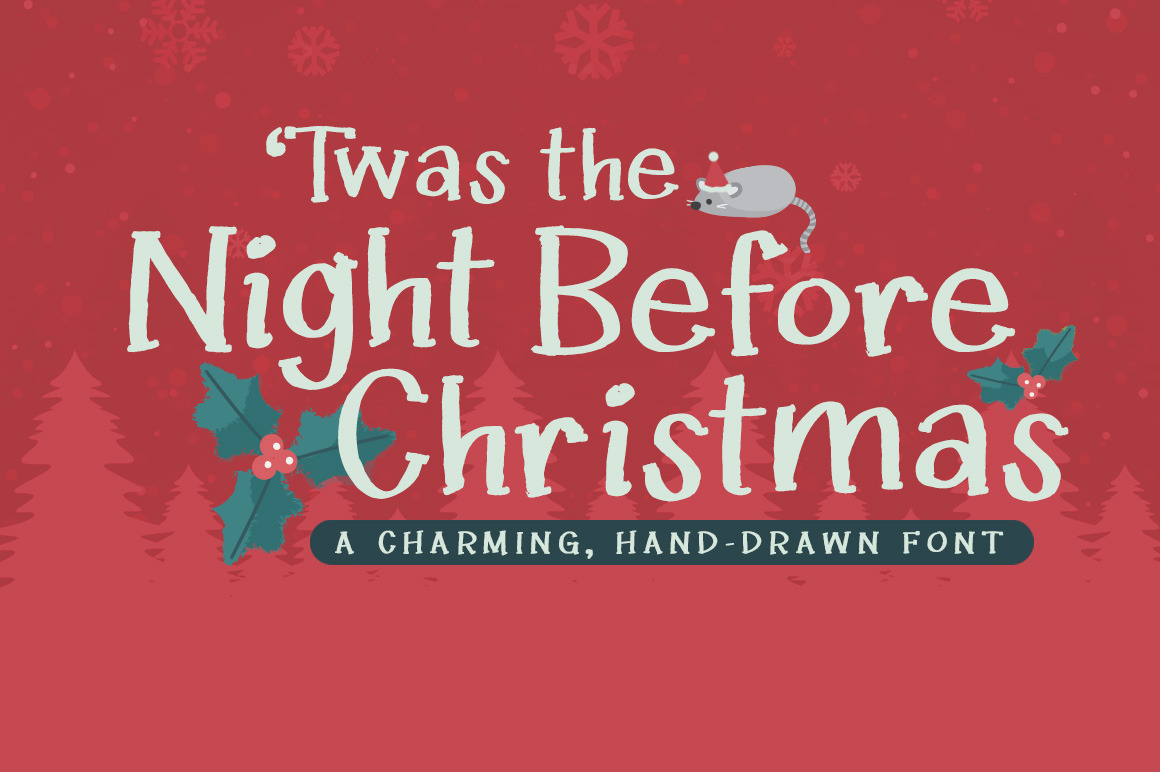
Twas the Night Before Christmas Font
'Twas the Night Before Christmas is a handwritten serif font that's super versatile-- it's not just for Christmas, actually! The kooky, uneven letters are perfect for adding that handwritten marker look to your Halloween, birthday, packaging, social media projects and more!
- All uppercase
- All lowercase
- Numerals and punctuation
- European language characters